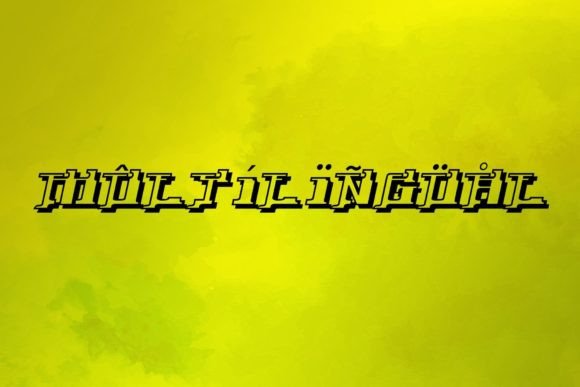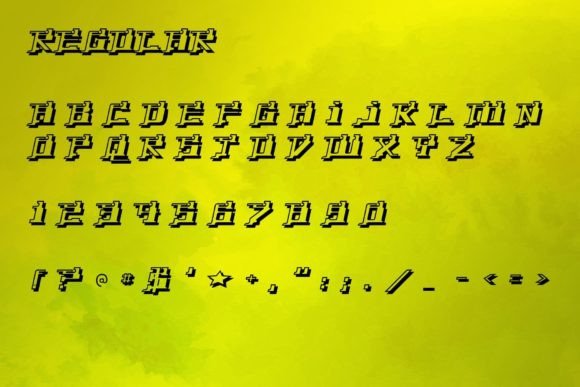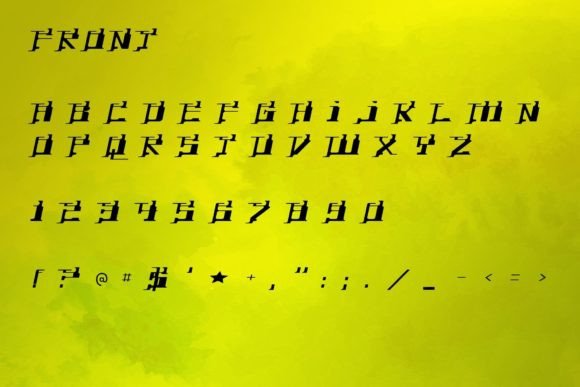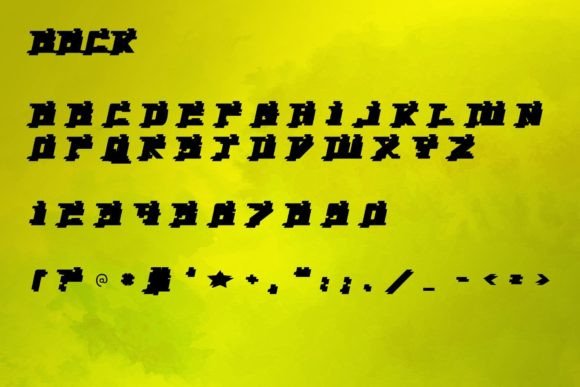
Addict Font: Elevate Your Designs with this Cool and Interesting Display Font
Are you tired of using the same old fonts in your designs? Look no further than Addict Font, a cool and interesting display font that is sure to elevate any creation. With its unique style and versatility, Addict Font is an incredible asset to any font library, regardless of the topic or theme.
What Makes Addict Font So Special?
Addict Font is a display font that is designed to grab attention and make a statement. Its cool and interesting style is perfect for designers and crafters who want to add a touch of personality to their work. Whether you’re creating a logo, poster, or social media graphic, Addict Font is sure to make your design stand out from the crowd.
Key Features of Addict Font
- Unique Style: Addict Font has a one-of-a-kind style that is sure to set your designs apart from the rest.
- Versatility: This font can be used for a wide range of projects, from logos and posters to social media graphics and more.
- Easy to Read: Despite its unique style, Addict Font is easy to read and understand, making it perfect for use in a variety of contexts.
- High-Quality: Addict Font is a high-quality font that is designed to look great in any size or resolution.
- Logos: Addict Font is perfect for creating unique and eye-catching logos that will help your brand stand out.
- Posters: Use Addict Font to create bold and eye-catching posters that will grab attention.
- Social Media Graphics: Addict Font is a great choice for social media graphics, including Facebook posts, Instagram stories, and more.
- Headings and Titles: Use Addict Font to add a touch of personality to your headings and titles.
Tips for Getting the Most Out of Addict Font
Here are a few tips for getting the most out of Addict Font:
- Experiment with Different Sizes: Addict Font looks great in a variety of sizes, so don’t be afraid to experiment and find the size that works best for your project.
- Pair it with Other Fonts: Addict Font pairs well with a variety of other fonts, so try pairing it with some of your favorite fonts to create a unique look.
- Use it to Add Emphasis: Addict Font is perfect for adding emphasis to your designs. Use it to draw attention to important information or to create a focal point.